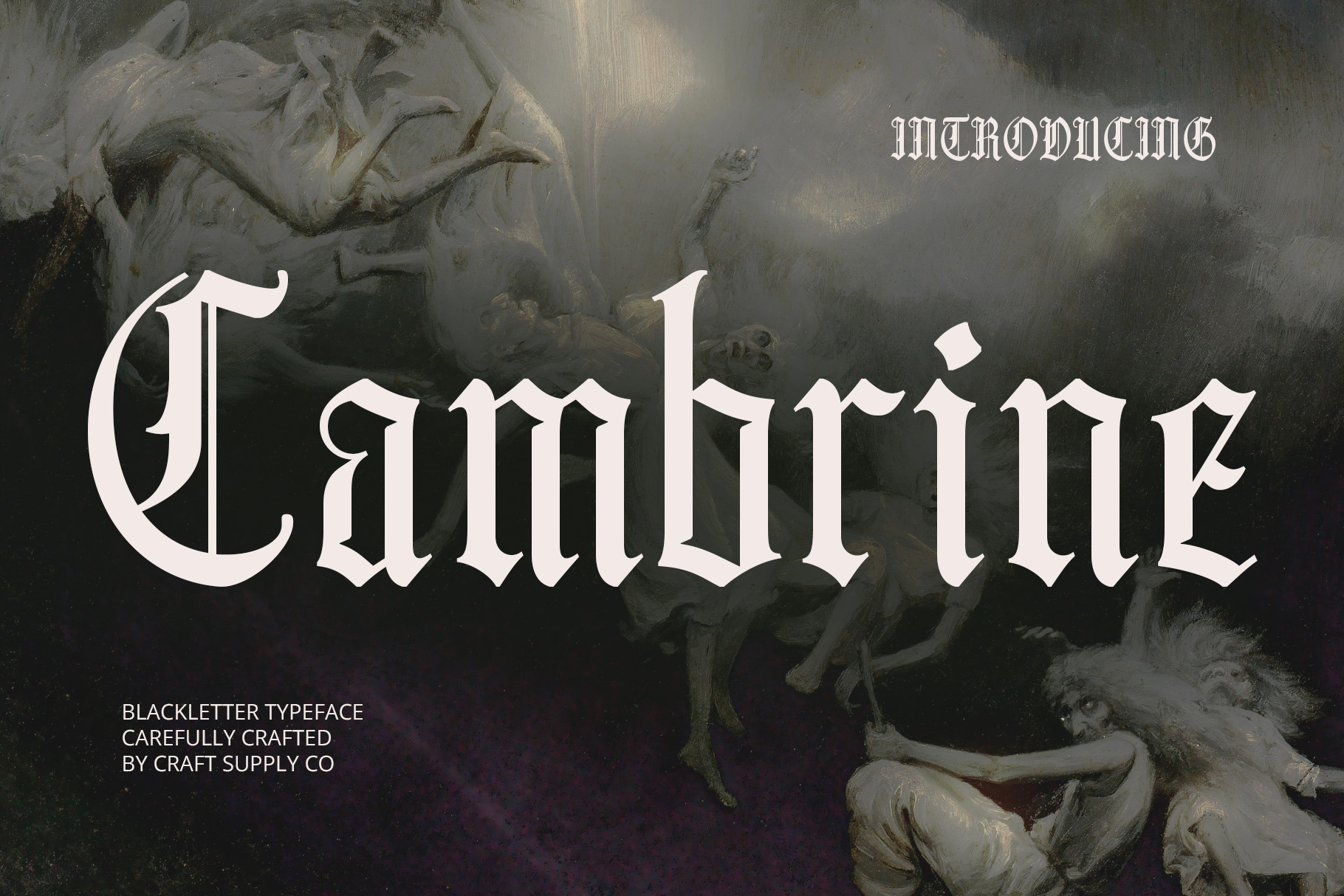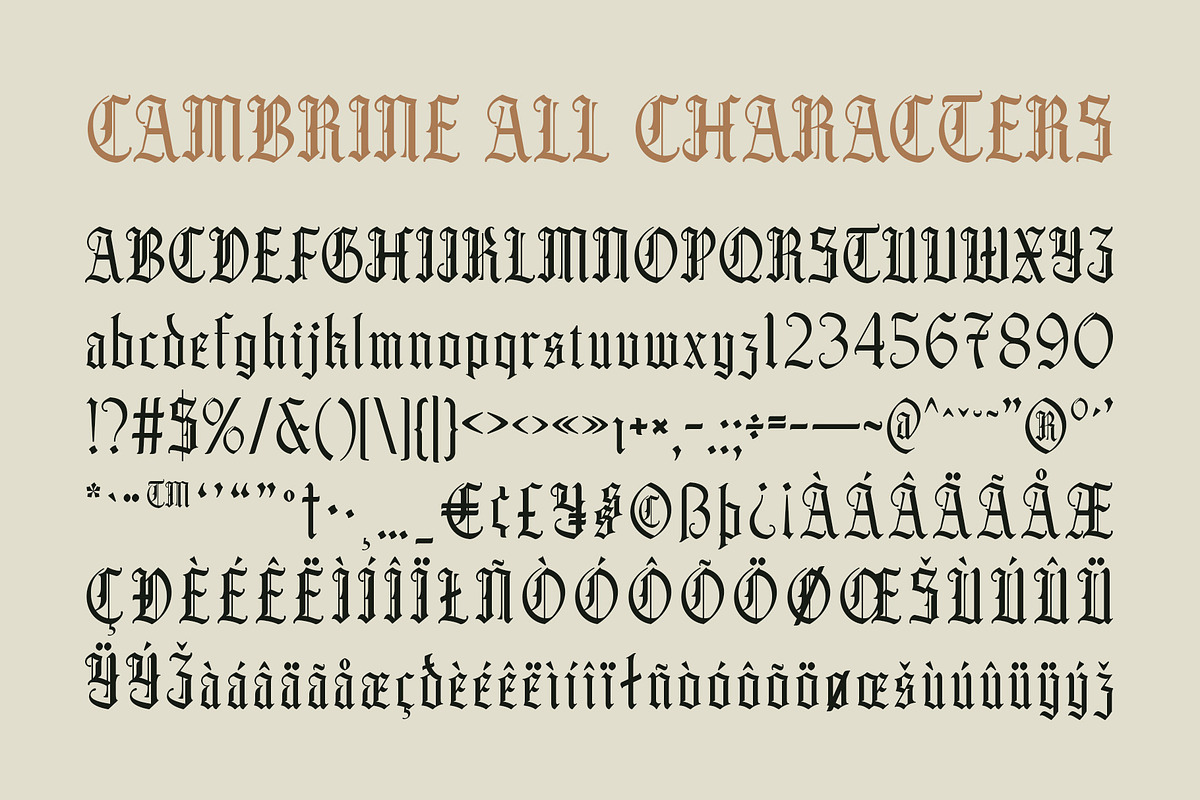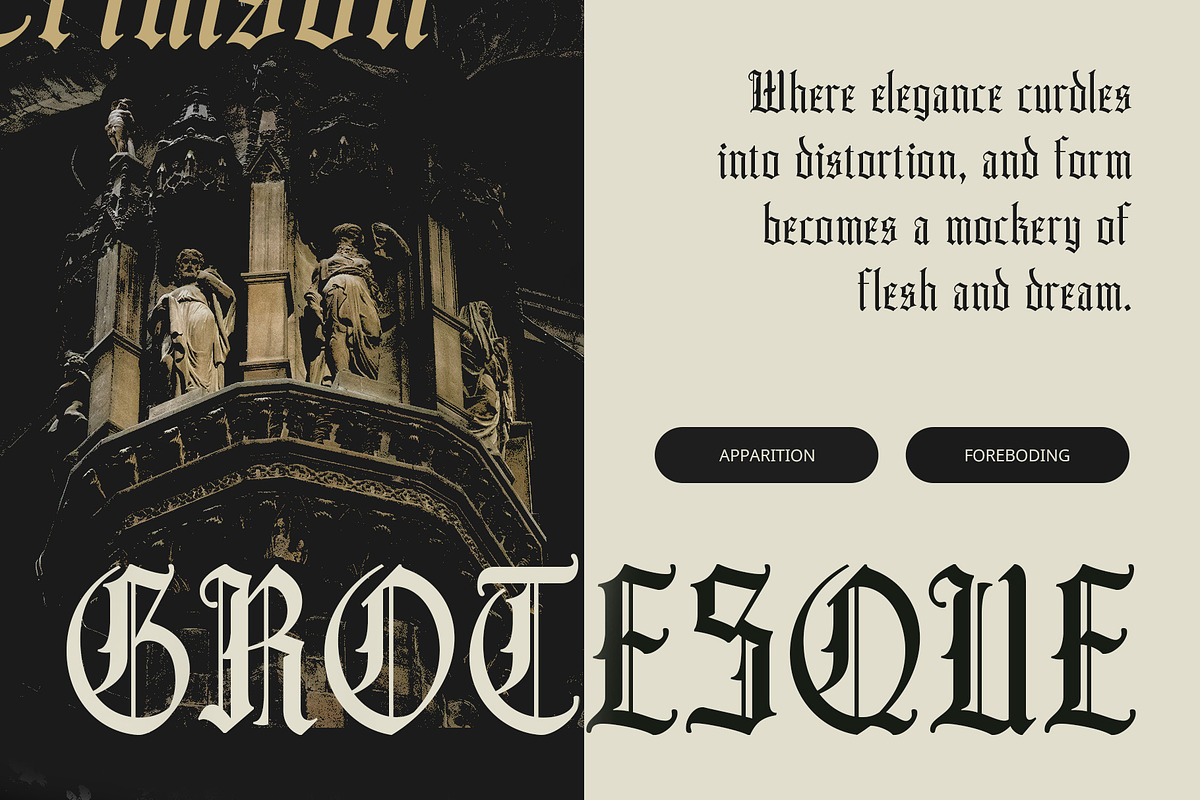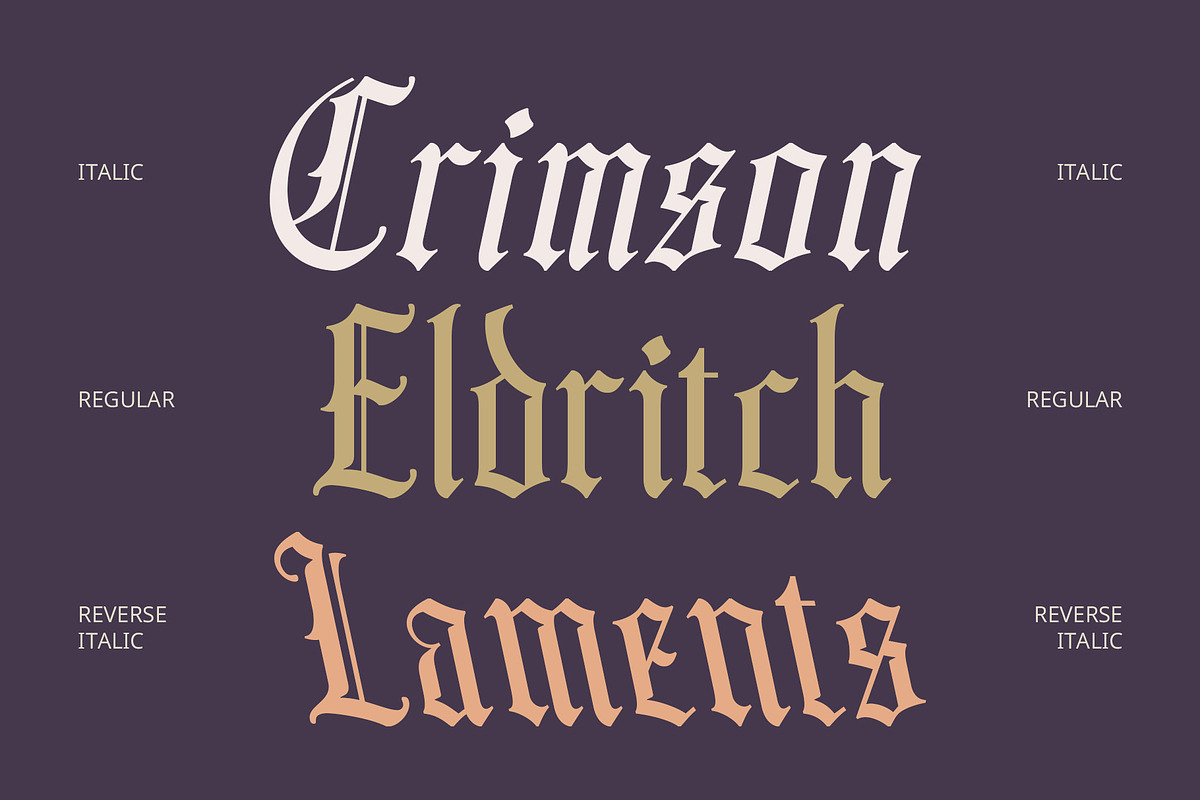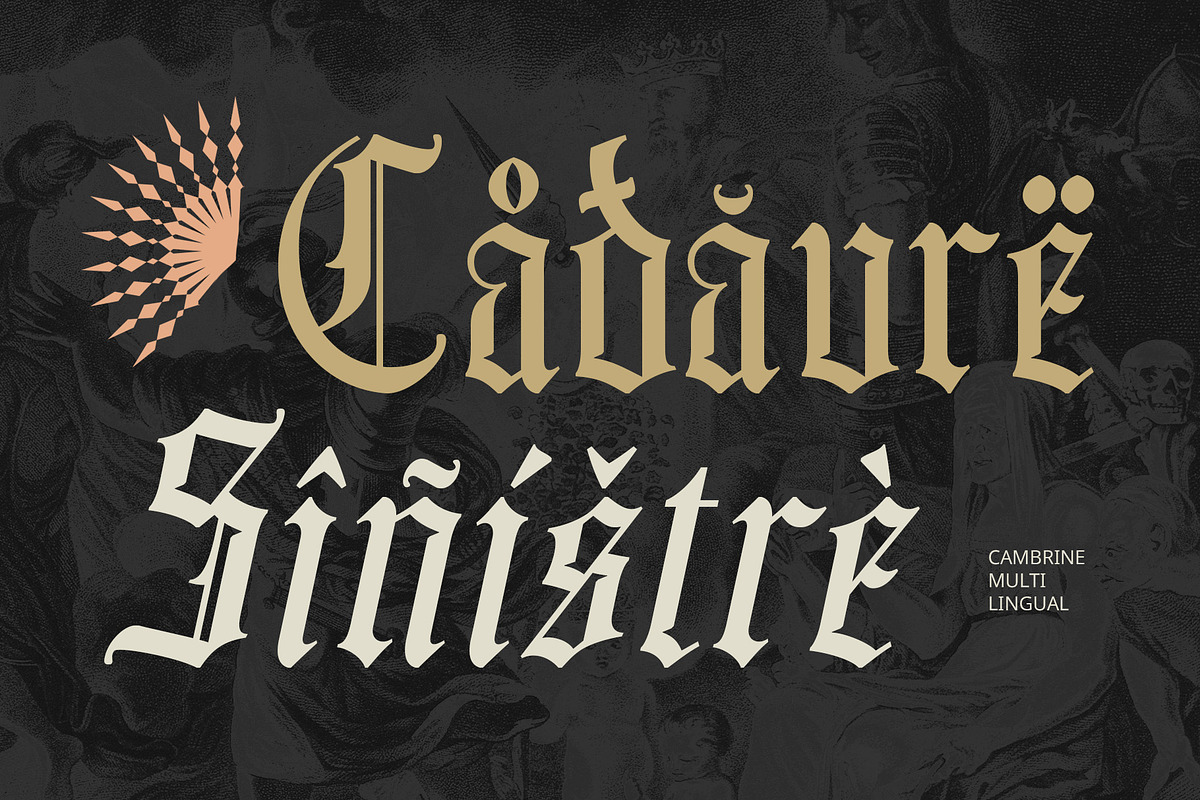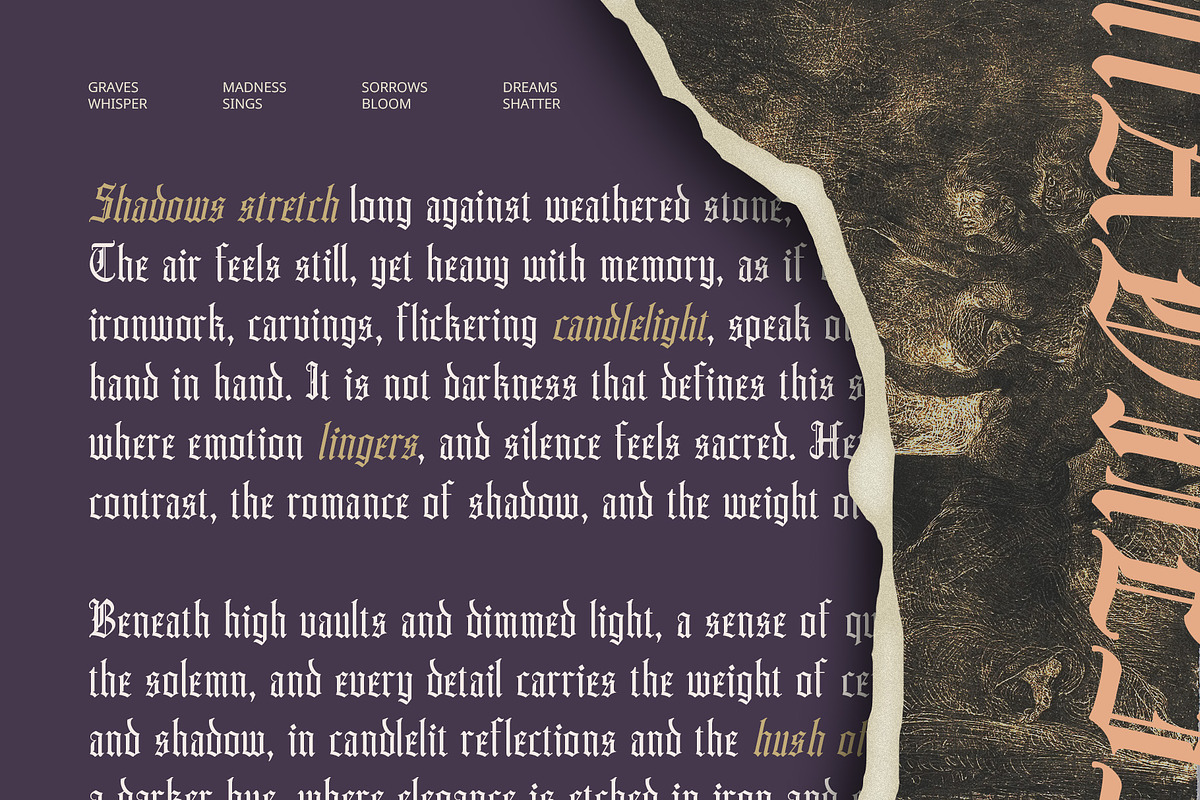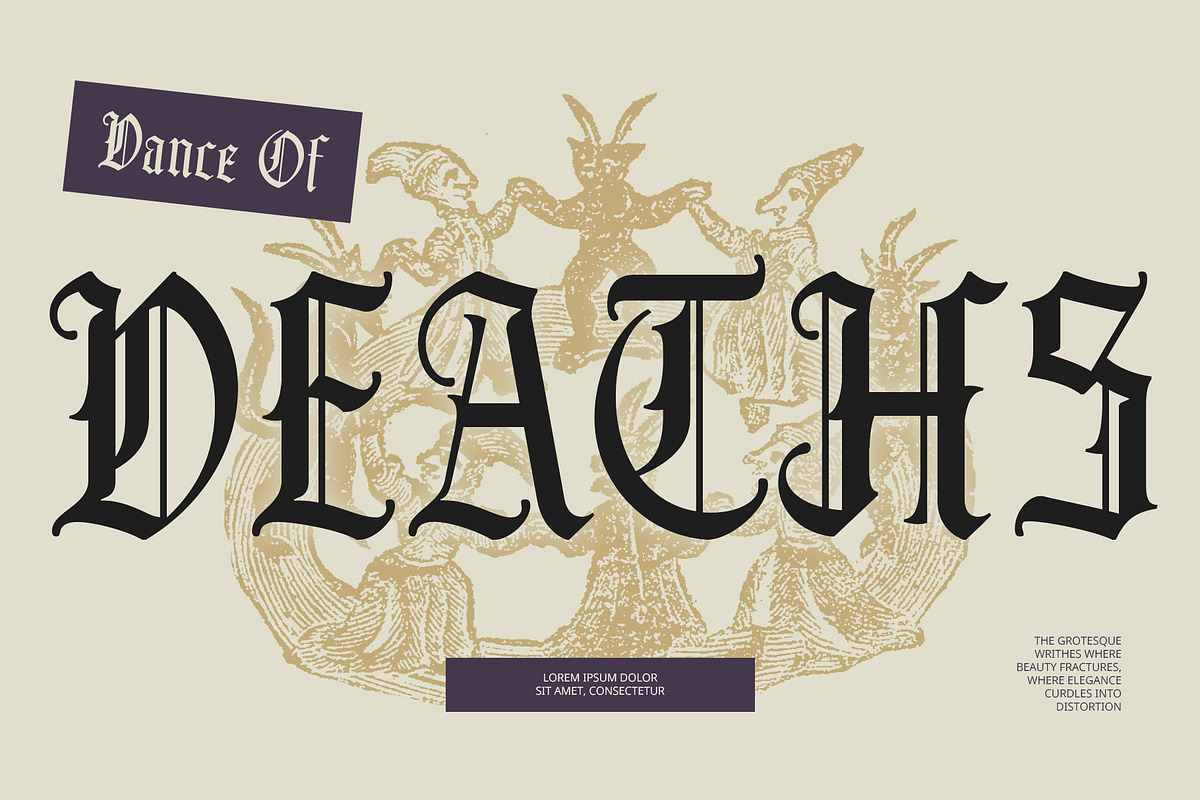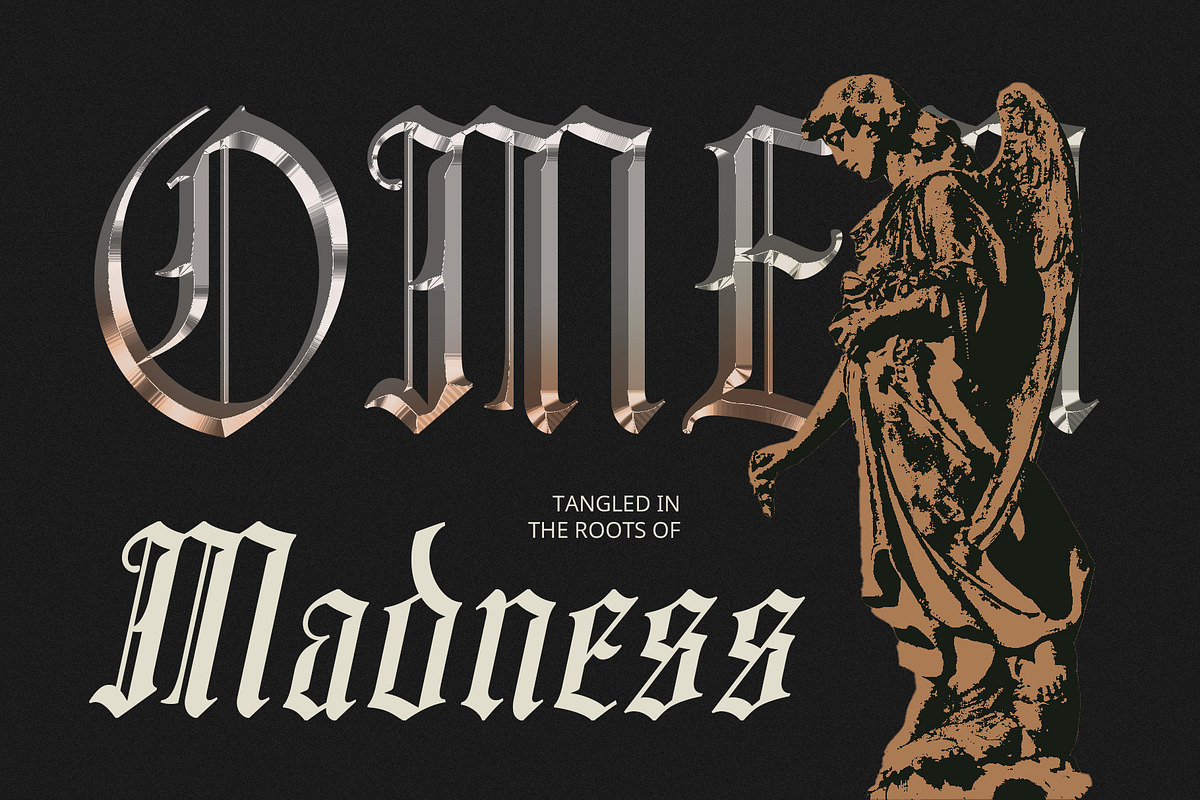
Cambrine – Blackletter Font
Cambrine – Blackletter Font: Modern Gothic Boldness with Contemporary Flair
Modern Blackletter with a Contemporary Edge Cambrine is a modern blackletter display font that skillfully fuses the dramatic, ornamental traits of traditional Gothic typefaces with clean, bold updates. This blend delivers a font that feels both rooted in history and strikingly relevant for today’s design landscape, making it an excellent choice for designers who want to bridge classic and modern aesthetics.
Sharp and Assertive Forms Featuring sharp angles, bold strokes, and ornamental details, Cambrine projects strength and character. Its letterforms are thoughtfully simplified to enhance readability without losing the distinctive Gothic flair. This balance makes the font ideal for creating striking headlines and powerful visual statements.
Versatile for Bold and Artistic Projects Cambrine is perfect for music posters, alternative branding, or experimental creative works that need a bold and edgy touch. Its unique style resonates with projects aiming for a rebellious, artistic, or vintage-modern aesthetic, adding a rich sense of history with a contemporary twist.
Character-Rich and Statement-Making With its strong presence and distinctive personality, Cambrine creates memorable and impactful visual identities. Whether used in logos, packaging, editorial layouts, or promotional materials, it delivers a powerful and expressive look that commands attention and creativity, making any design truly stand out.
- Cambrine Regular
- Cambrine Italic
- Cambrine Reverse Italic